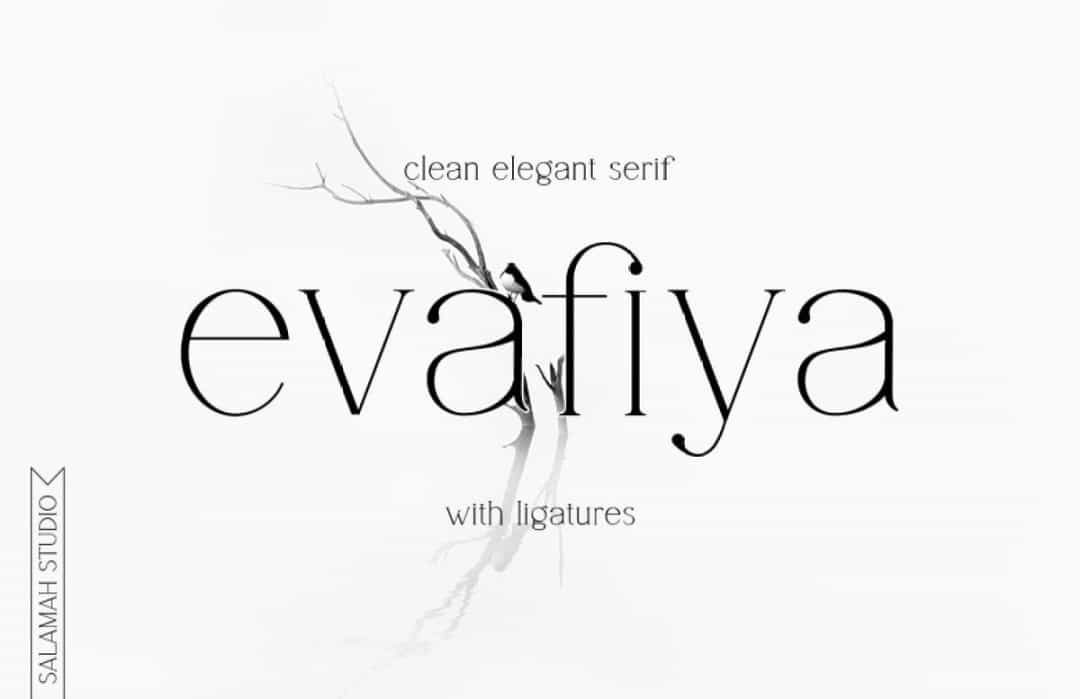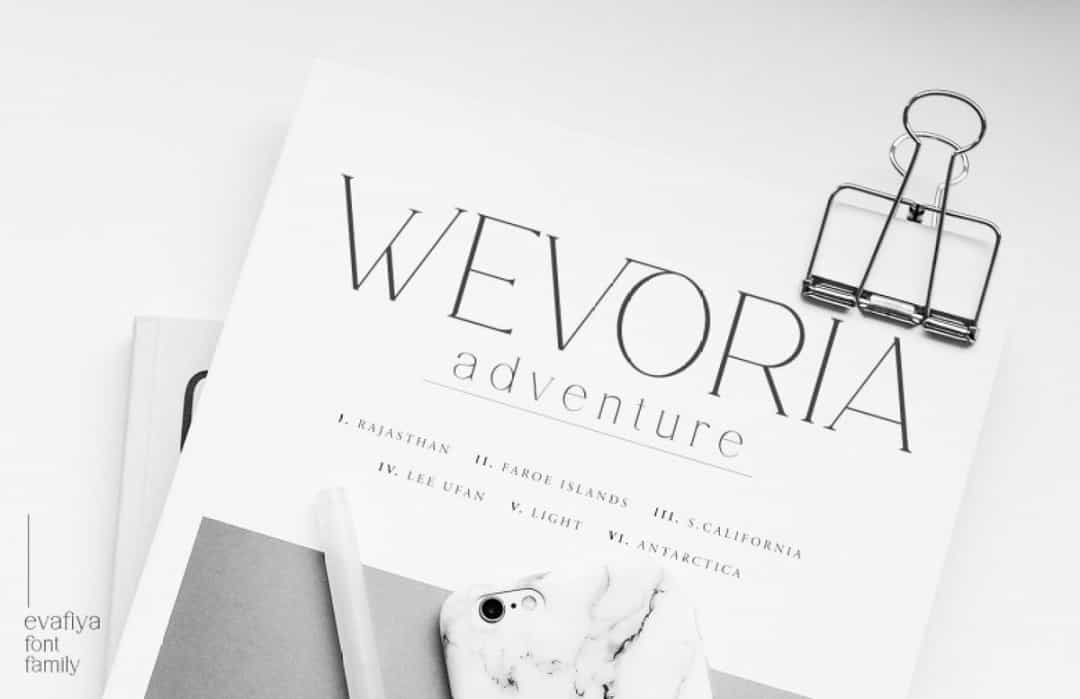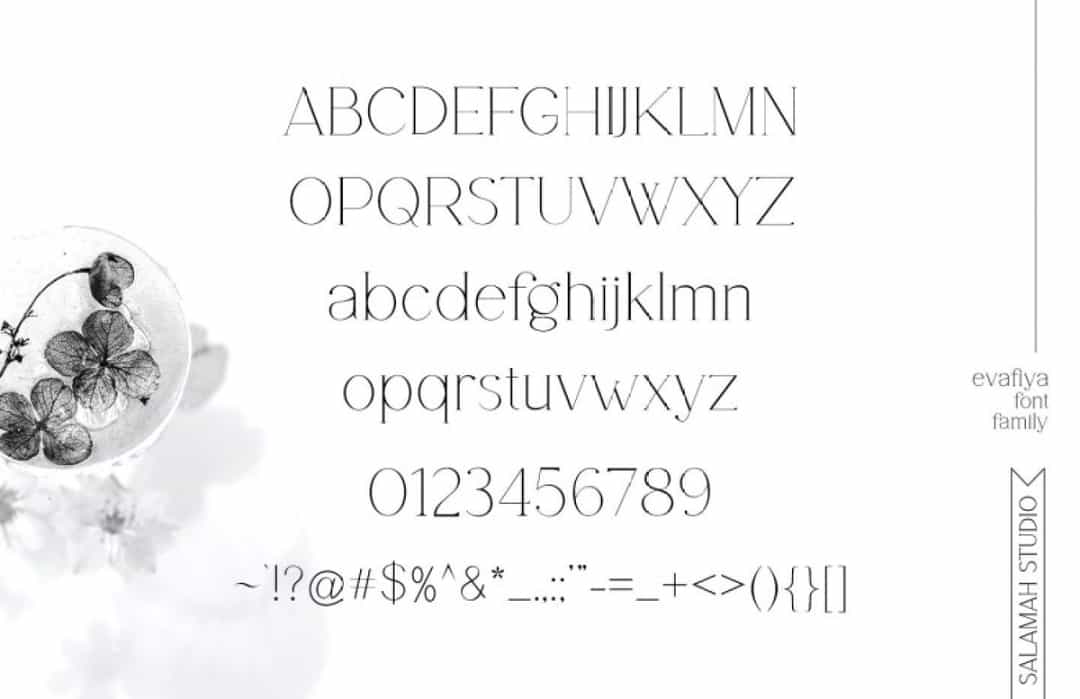
Evafiya can be described as an elegant and clean serif font. It’s ideal for use across various media formats – posters, logos, magazines or greeting cards among them – featuring punctuations marks and multilingual support for greater versatility.